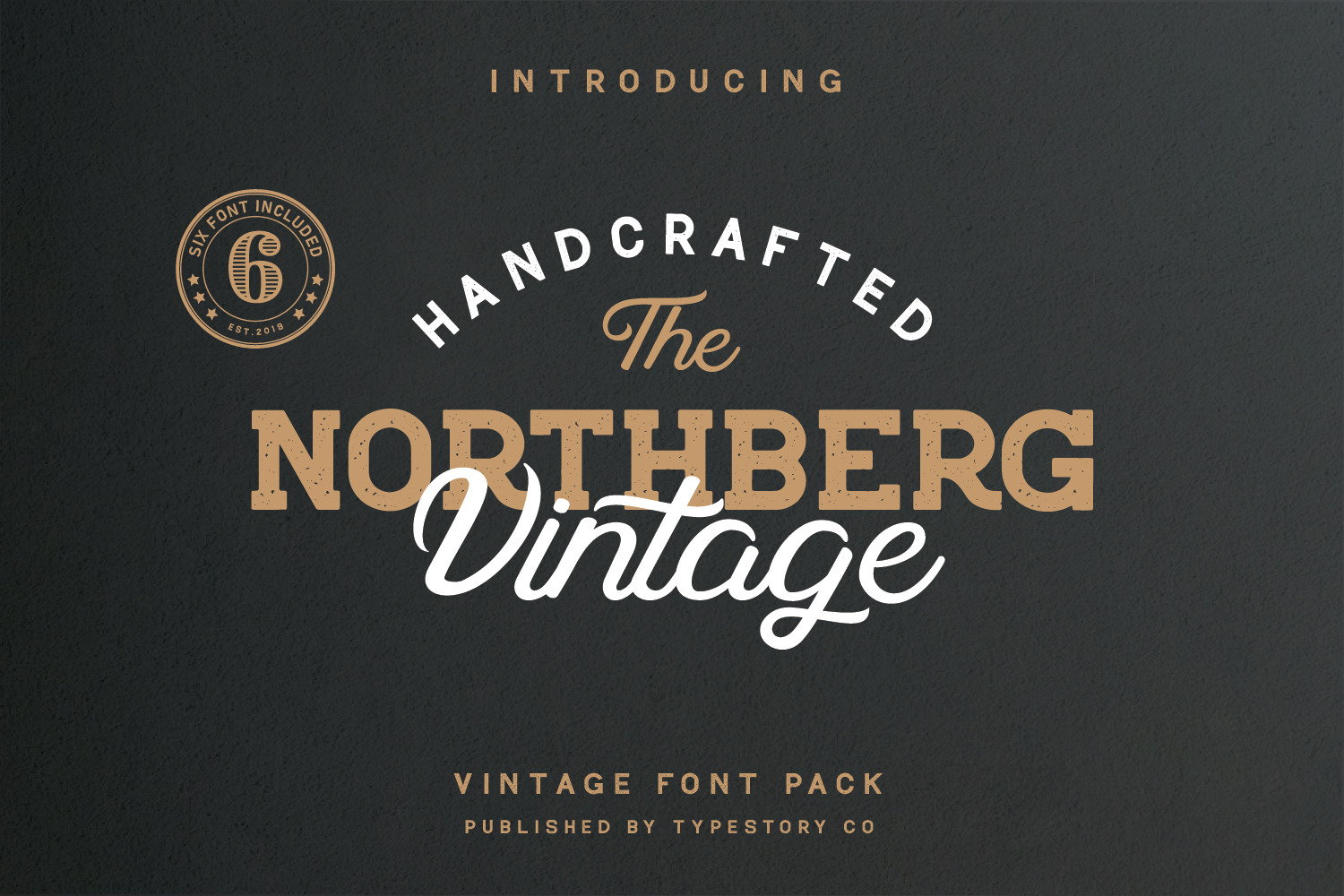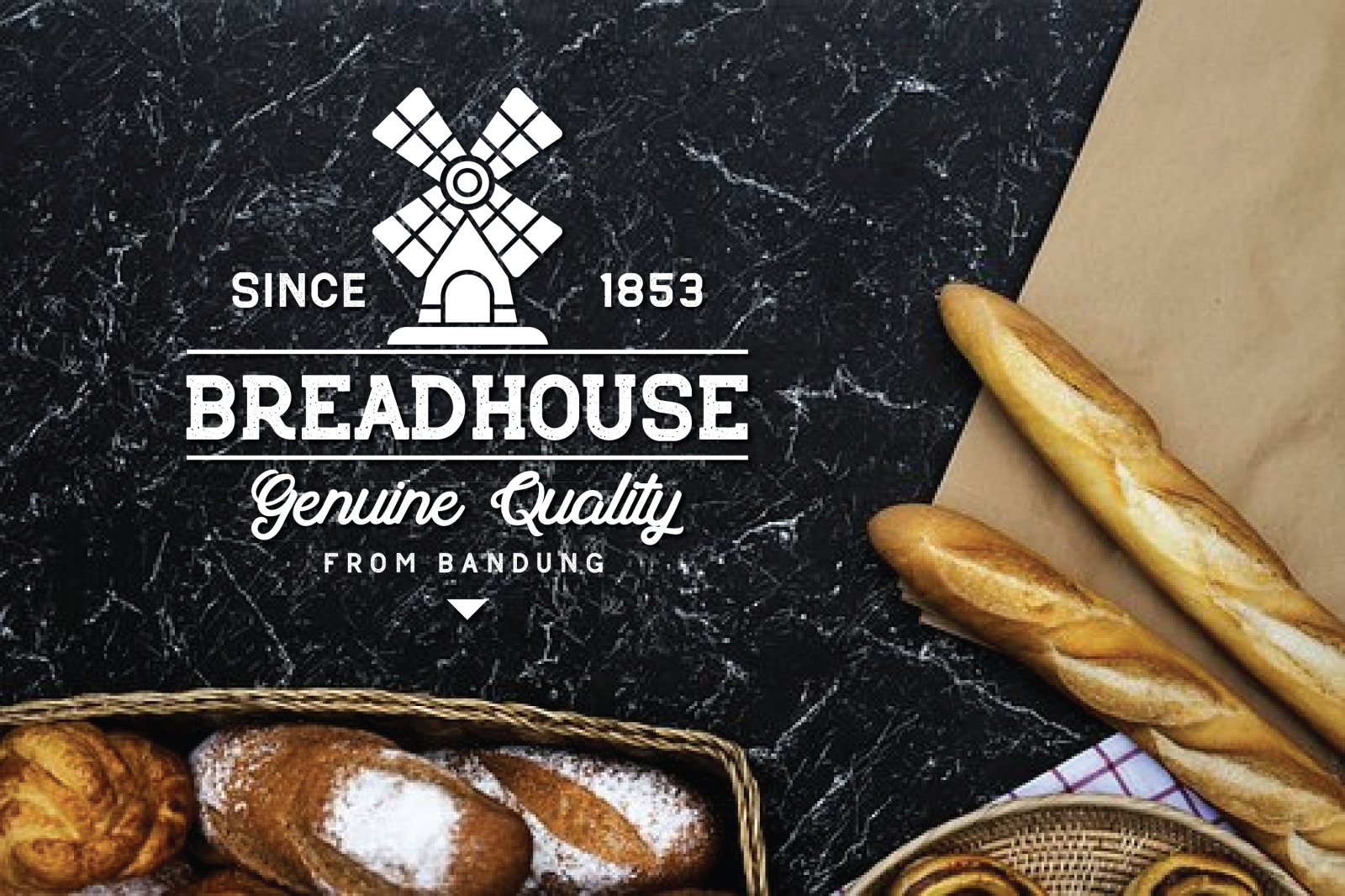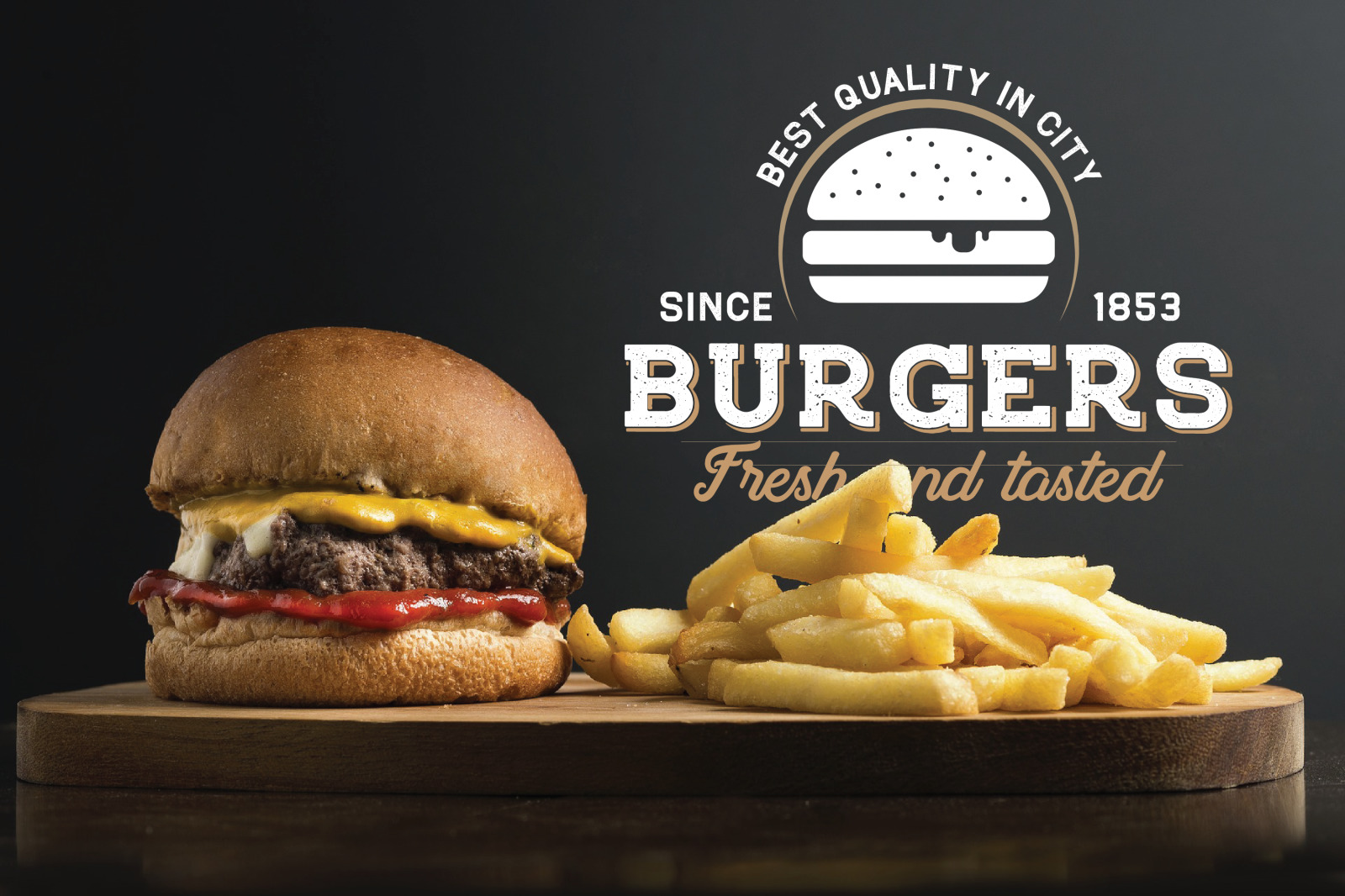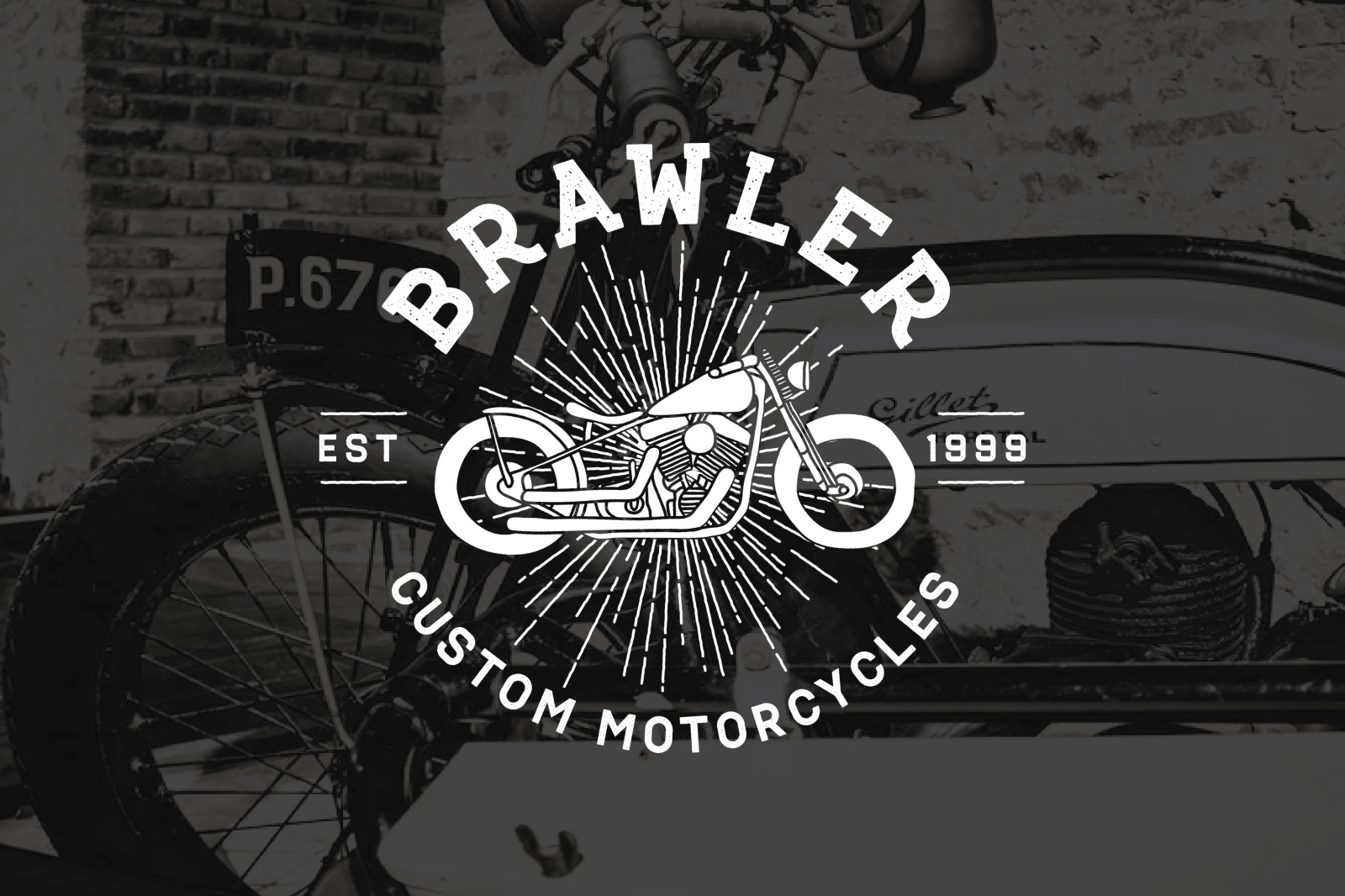
Northberg font collection
Northberg is an excellent pairing font for creating vintage designs, very good for logos, posters, book covers, signs and much more.
This product contains 6 fonts including script font, sans serif and slab serif.